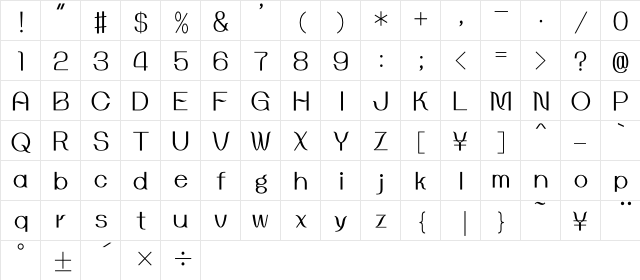
id-kairyu1OT-Light Regular
Design Context for id-kairyu1OT-Light Typeface
id-kairyu1OT-Light takes a measured approach to typography — its balanced proportions and neutral character make it a reliable workhorse for both digital and print work. The delicate stroke weight brings airiness and refinement to layouts.